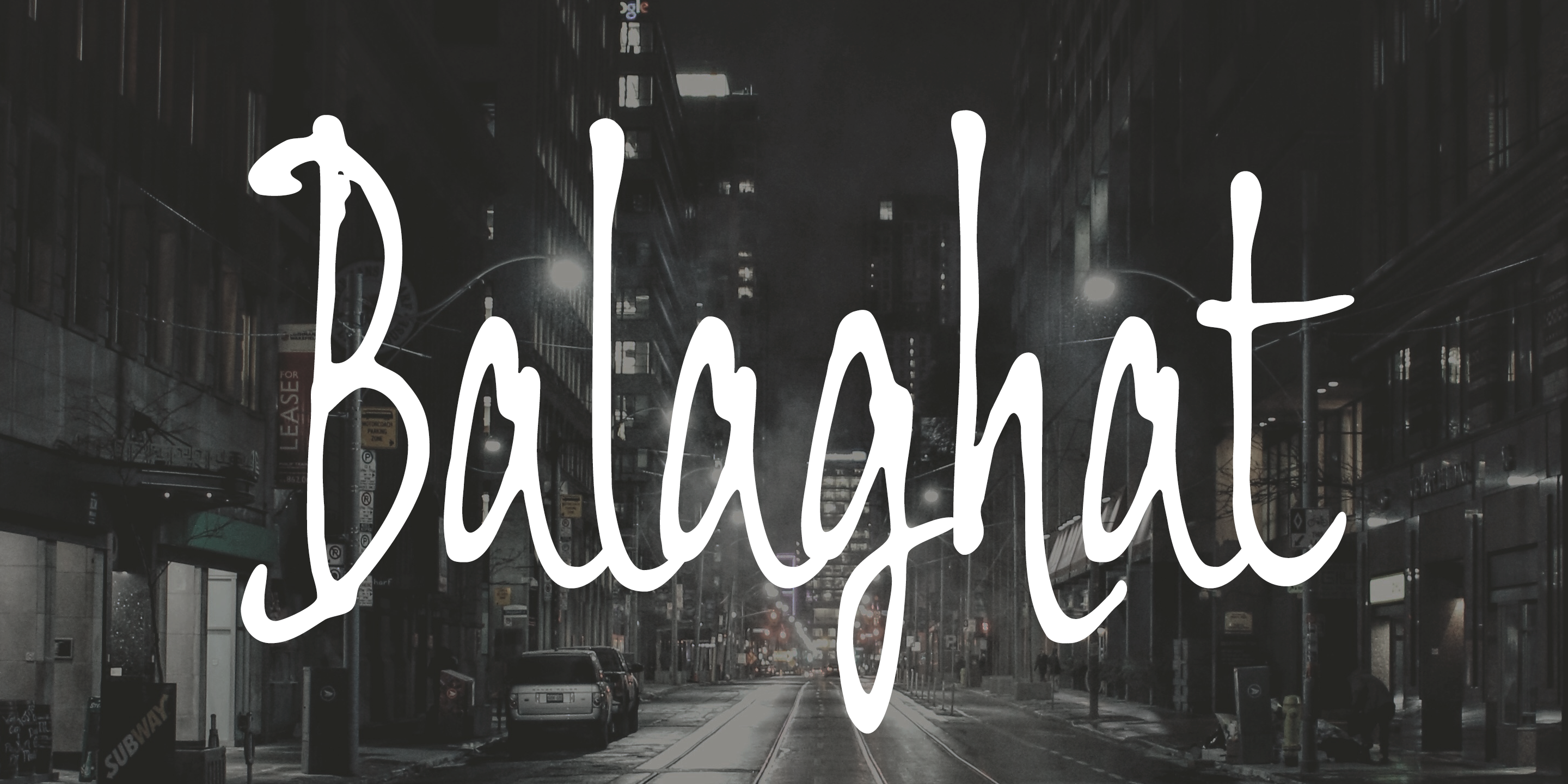
Elevate Your Designs with Balaghat Font Free Download
Balaghat Font is incredibly versatile, making it perfect for a wide range of applications. Imagine it gracing elegant wedding invitations, adding a sophisticated touch to branding and logos, or enhancing the readability of editorial designs. Its unique character also makes it ideal for magazine layouts, book covers, website headers, and even apparel designs. Whether you're crafting a minimalist poster or a vibrant advertising campaign, Balaghat Font can bring your vision to life with its distinctive charm.
What makes Balaghat Font so exciting? It’s more than just a typeface; it’s a design statement. Its compelling aesthetic strikes a perfect balance between classic elegance and contemporary flair, offering a fresh perspective that sets your work apart. The subtle nuances in its letterforms provide a sense of refined artistry, ensuring that your text is not only legible but also visually captivating. Designers consistently praise its ability to convey both professionalism and creativity, making it a go-to choice for projects that demand a memorable visual impact. This font injects personality and sophistication into any design, turning ordinary text into an extraordinary visual experience.
The Balaghat Font family offers a comprehensive set of weights and styles, providing you with maximum flexibility for all your design needs. Typically, you'll find variations like Balaghat Light, Balaghat Regular, Balaghat Medium, Balaghat SemiBold, and Balaghat Bold. Some families may also include italic versions or specialized styles such as Balaghat Condensed or Balaghat Expanded. This extensive range ensures seamless integration into any design hierarchy, allowing you to create visually cohesive and impactful typography across different mediums. Explore the full potential of this exceptional typeface and discover how it can transform your projects. For a truly professional outcome, remember to secure your license for commercial applications after your initial Balaghat Font Free Download.